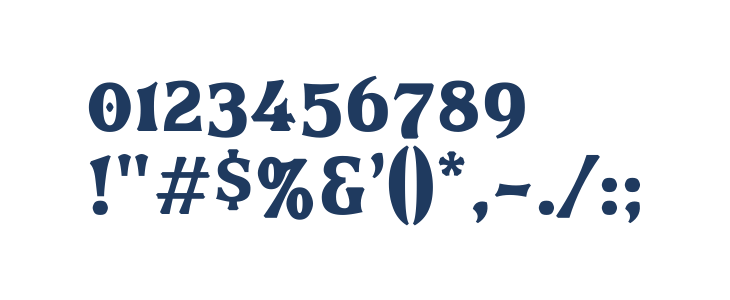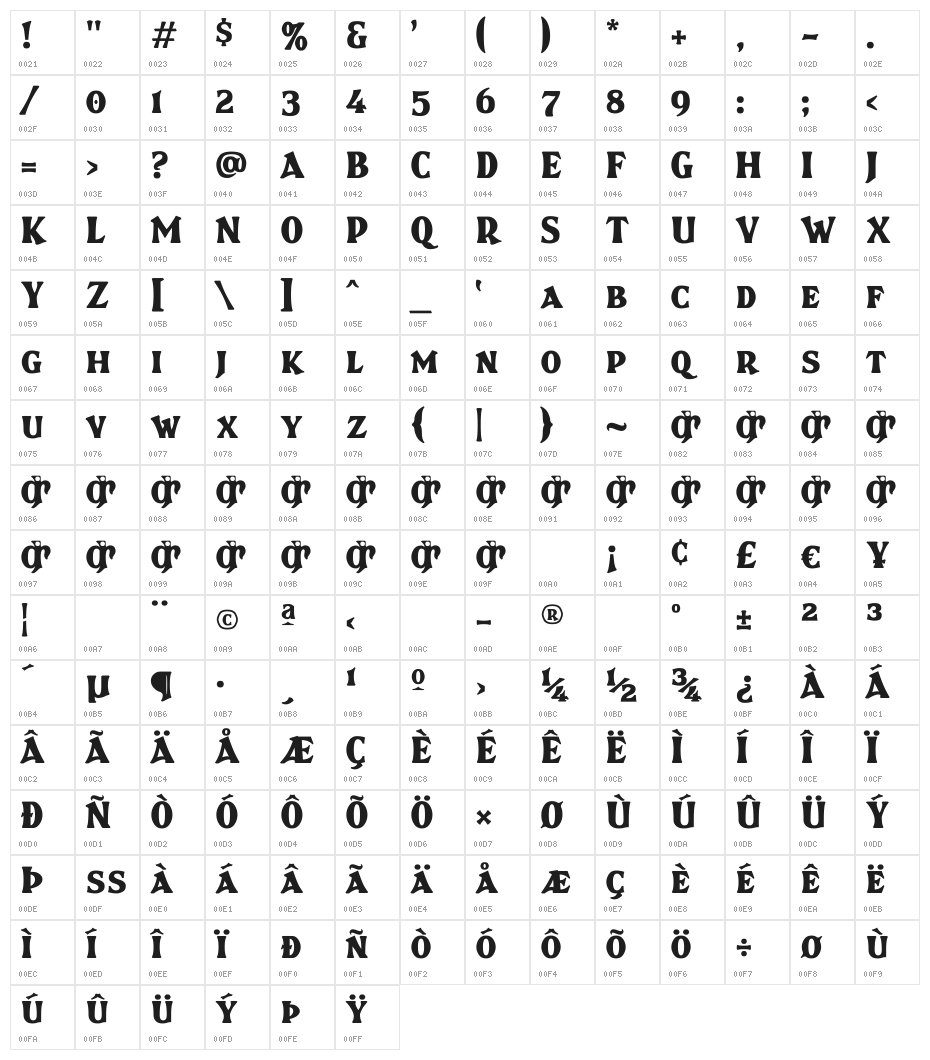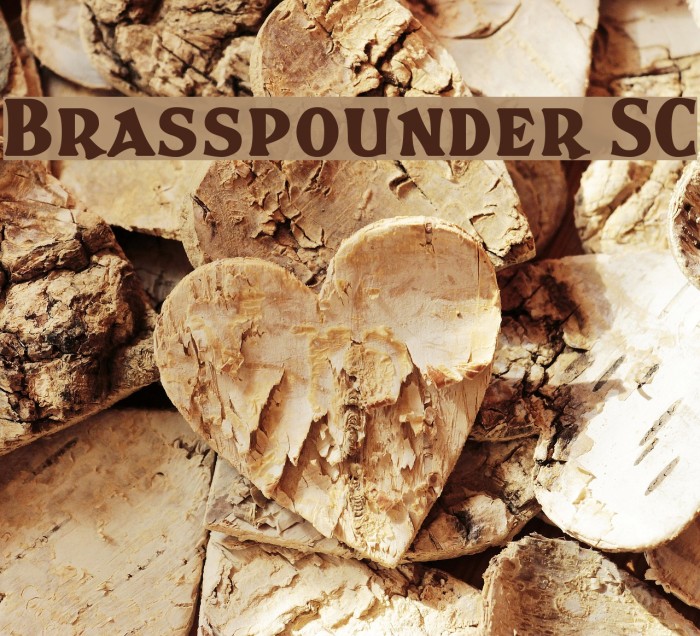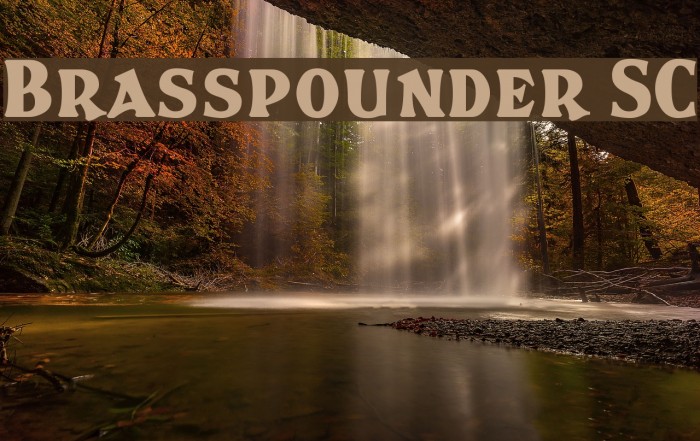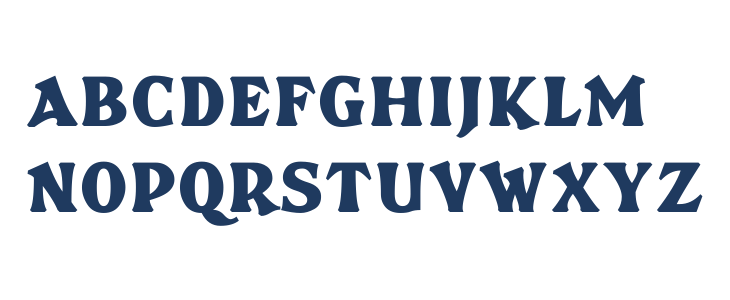
Brasspounder SC Font
Brasspounder SC Description
This font features a bold and dynamic style with a strong presence. The characters are designed with a distinct flair, showcasing thick strokes and sharp edges that create a sense of movement and energy. The uppercase and lowercase letters maintain a consistent weight, providing a cohesive look across the alphabet. The numerals are equally bold, ensuring readability and impact. Special characters are crafted with the same attention to detail, making them stand out. This font's unique style is perfect for projects that require a touch of boldness and creativity.
| Proposed Projects | Ideal for posters, headlines, branding, and any design needing a strong visual impact. |